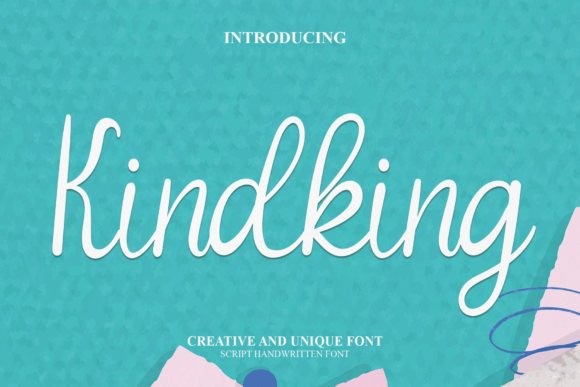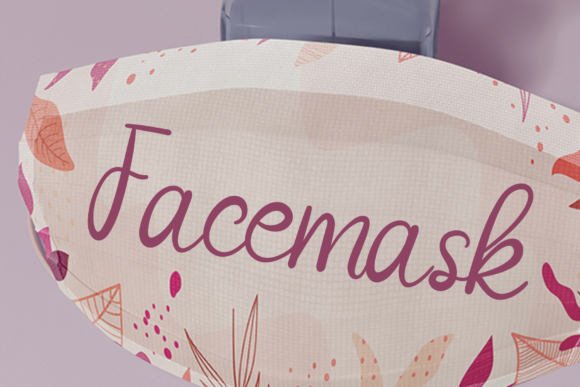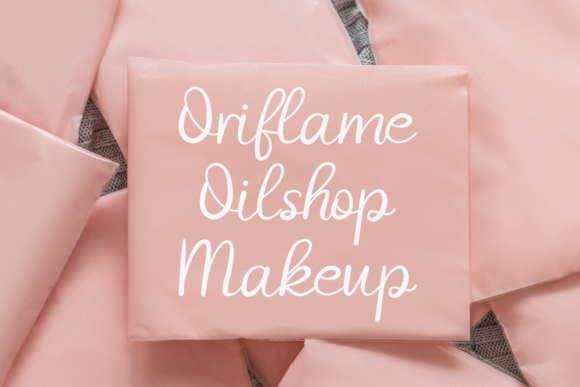
About Kindking Font
Kindking font exudes elegance with its sophisticated script font, complemented by a contemporary feel and impeccable form. Striking the perfect balance between thinness and boldness, this font offers a varied and well-balanced appearance, designed to elevate the beauty of your projects with its versatility and refined aesthetic.
Crafted with meticulous attention to detail, Kindking font radiates modernity and charm through its graceful letterforms and harmonious strokes. Its contemporary flair injects a fresh and stylish vibe into every design, while its flawless form ensures readability and visual appeal across various applications.
Versatility is a key feature of Kindking font, making it suitable for a wide range of design projects. Whether used for branding, advertising, invitations, or packaging, this font adds a touch of sophistication and professionalism to each application.
The moderate weight of Kindking font strikes a delicate balance, ensuring adaptability and versatility across different design styles and aesthetics. Its balanced approach imbues your projects with depth and character without overwhelming them.
Whether employed for digital or print media, Kindking font enhances the allure of your creations with its elegant script style. Its refined appearance brings a sense of class and sophistication to logos, headlines, and promotional materials, allowing your brand to stand out with timeless elegance.
In summary, Kindking font epitomizes contemporary chic and timeless elegance. With its flawless form, balanced weight, and varied design elements, it enriches the visual appeal of any project, leaving a lasting impression on viewers and enhancing the beauty of your designs with effortless sophistication.